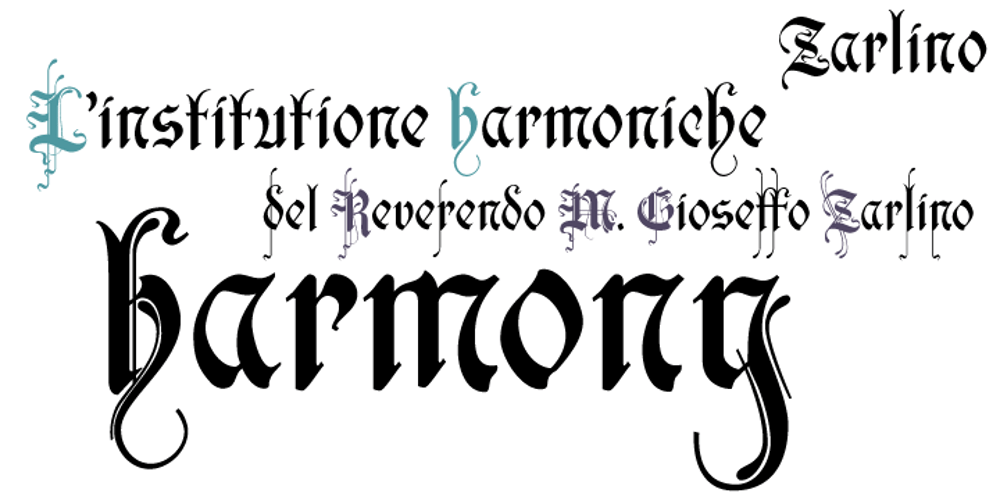
Zarlino
Zarlino font
Zarlino Font Family was designed by Patricia Lillie and published by Patricia Lillie. Zarlino contains 2 styles and family package options. Zarlino is an original typeface in the Blackletter style. It does not solidly adhere to any of the historical Blackletter classifications, but draws from all of them, with some characters owing more to the Roman than the Fraktur. Zarlino Delux includes three complete sets of upper case, ranging from the simple to the embellished to the even more embellished, two complete sets of lower case, and two more sets of embellished alternates for selected lower case characters. These alternates are available through Stylisitic Sets in OpenType aware applications. For use in non-OpenType aware applications, Zarlino Delux comes with a set of separate, standard fonts, one for each style. These standard fonts are also available for individual purchase. Zarlino was named by my cousin, a musician. Gioseffo Zarlino was a sixteenth century composer and musical theorist. Among other things, he offered detailed advice on the setting of words to music. With its blends of the old and the new, the simple and the ornate, Zarlino is suitable for many uses, from the elegant to the aggressive.